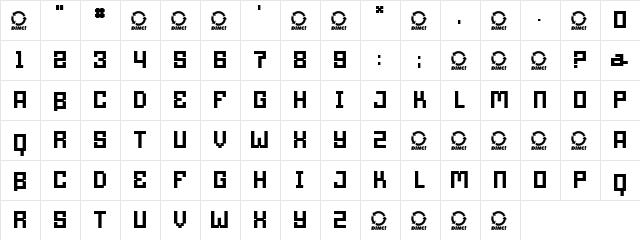
OfficeBoy Regular
Design Context for OfficeBoy Typeface
OfficeBoy offers clean, dependable letterforms without strong stylistic allegiance, making it a practical choice for designers who need flexibility.
Pro Tip: Use OfficeBoy in both headline and body roles to test its range before committing to a single application.